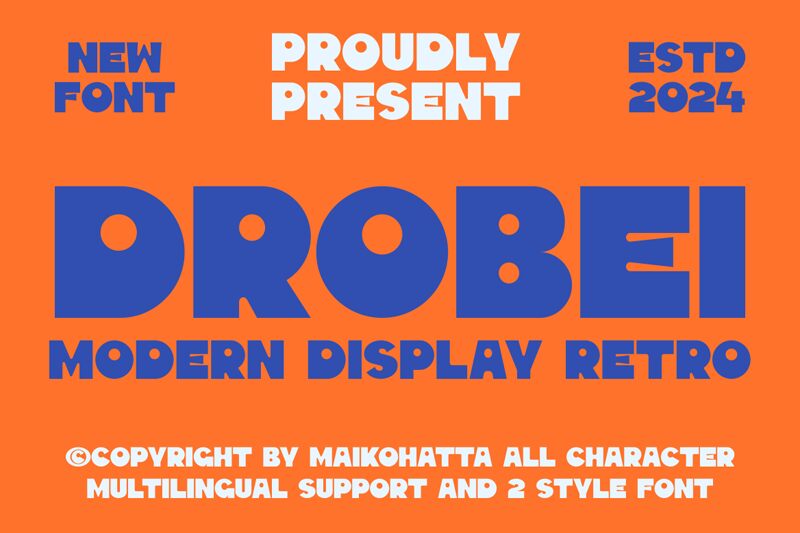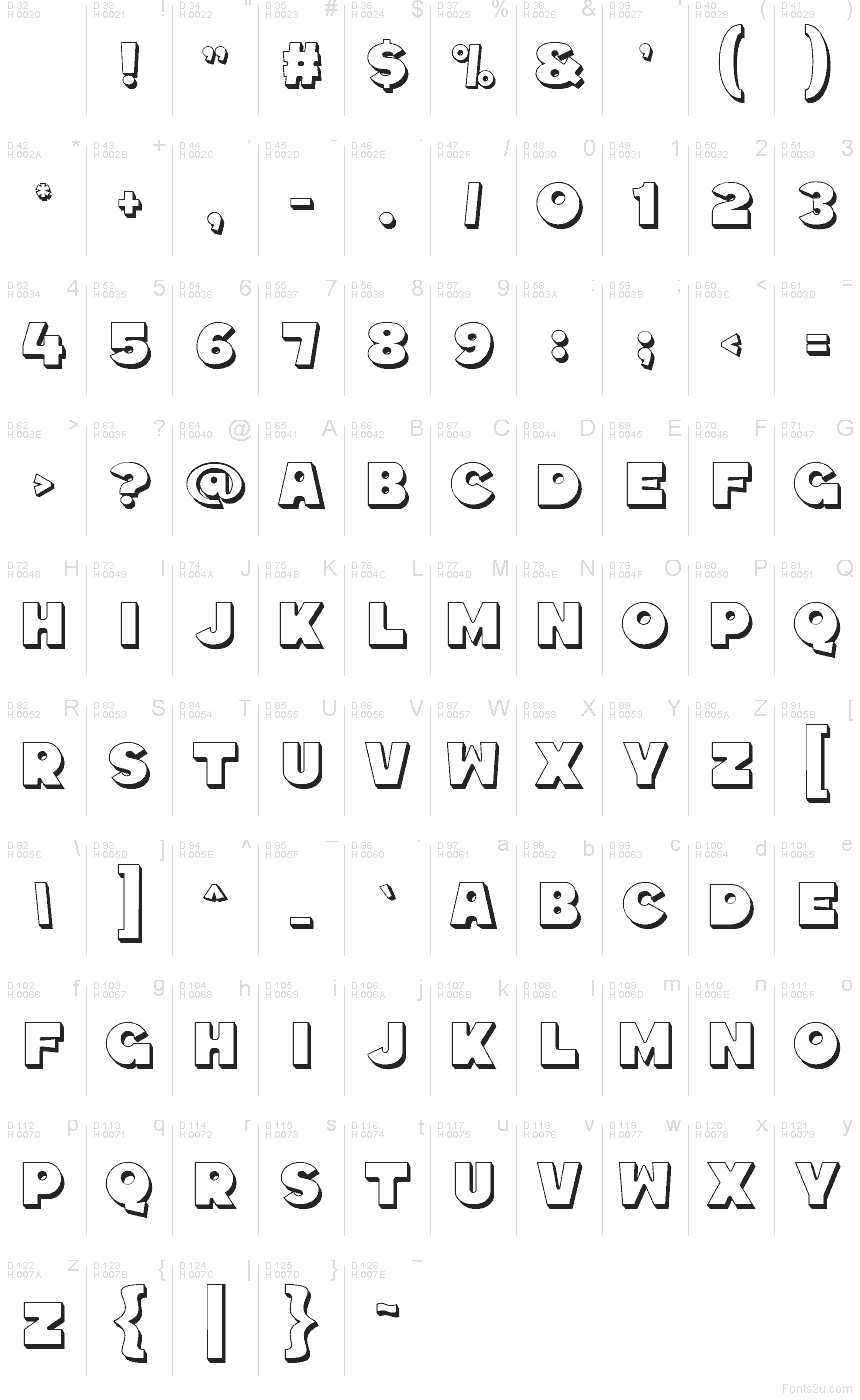
Drobei Outline Block
Drobei Outline Block font by Gilang Ternadho of Maikohatta is a free retro 3D display typeface. Sitting in the Drobei family, its chunky, rounded letters sit inside inky black outlines, with a subtle blocky shadow that makes every word feel like it’s popping off a vintage arcade cabinet or candy box. The hollow interiors keep the forms surprisingly light, so even big, loud titles don’t feel heavy or cramped.
Using Drobei Outline Block, headlines instantly gain that playful, throwback punch that’s hard to fake with filters alone. This free font shines on posters, game titles, YouTube thumbnails, event flyers, bold logos, and fun packaging. Pair it with a clean, unobtrusive sans-serif for body text and let Drobei handle the big, shouty moments at large sizes where its 3D contours really stand out.